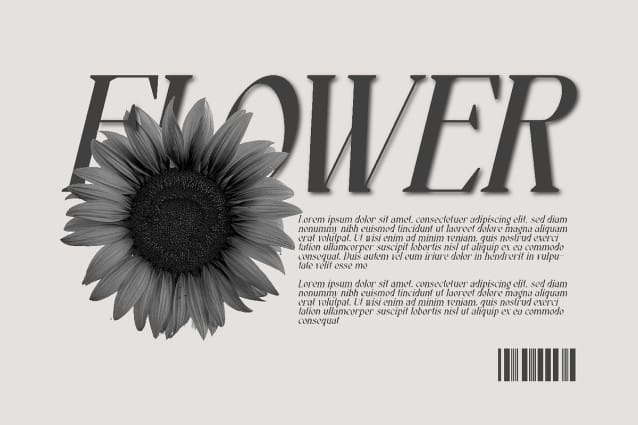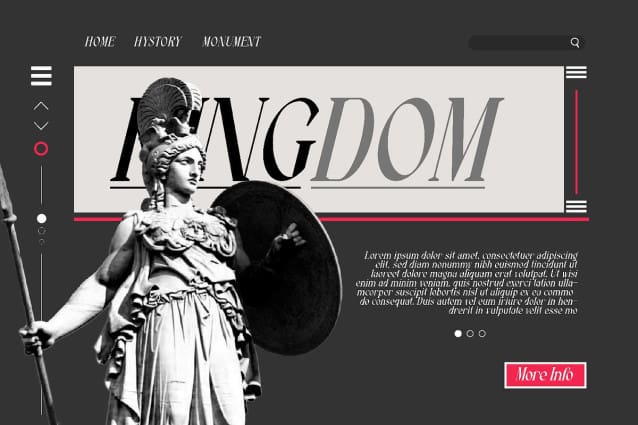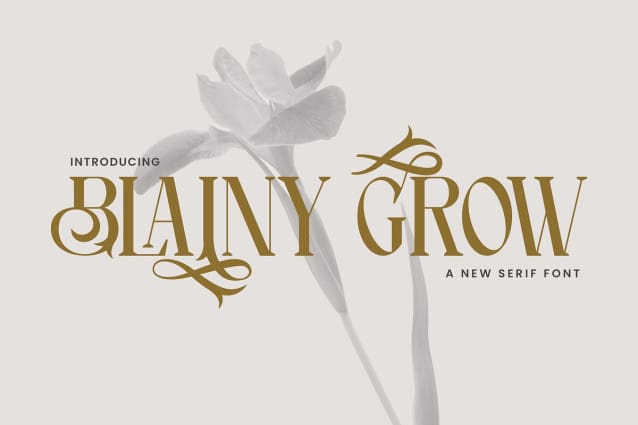
Blainy Grow Font
Blainy Grow Font – Elegant Serif Font, from Rishsketch Studios, is a premium Serif Font, perfect for any project that requires a distinctive, and premium feel.